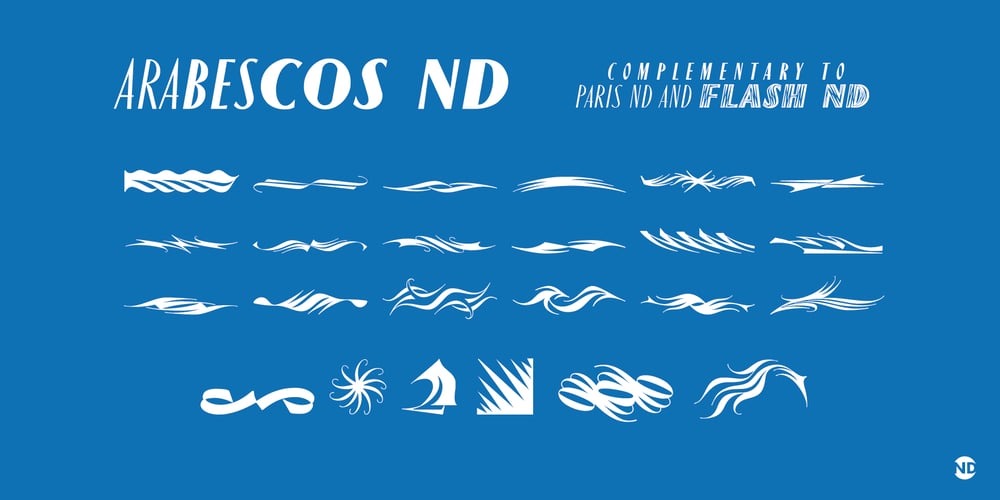
Arabescos ND Font Family was designed by Enric Crous-Vidal and published by Neufville Digital. Arabescos ND contains 1 styles and family package options. Arabescos ND is part of Neufville Digital’s GRAFÍA LATINA Collection. The original name of this collection of typographic decorations is ‘FUGUE D´ARABESQUES’. These elements can spice up texts and give them a significance beyond their words. Unlike other typographic decorum these symbols inspired by sea and air have numerous matching points to join them with letters, words and texts.